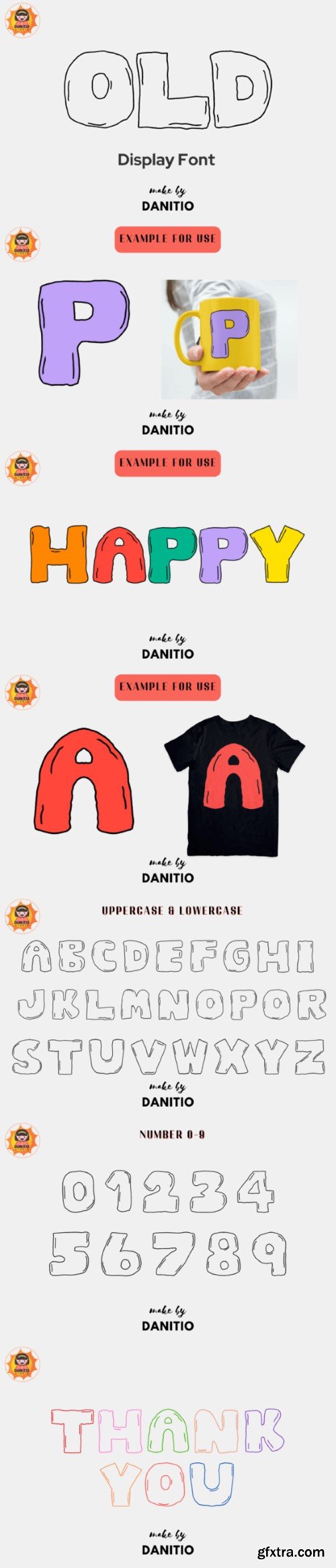
旧字体
Old is a simple and cute display font with a timeless charm. Its clean lines and rounded edges evoke a sense of nostalgia and warmth. Perfect for crafting vintage-inspired designs, logos, and packaging, Old adds a touch of sweetness and playfulness to any project. Its simplicity and legibility make it a versatile choice for various creative endeavors.